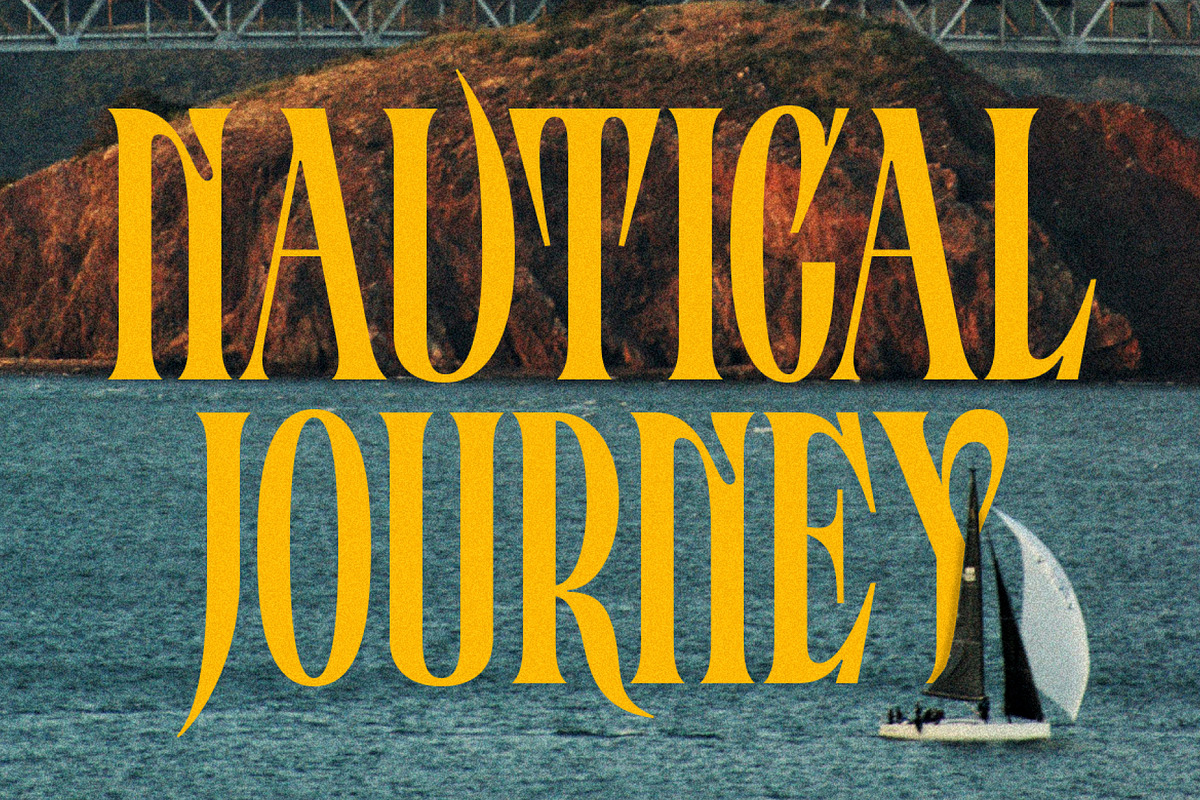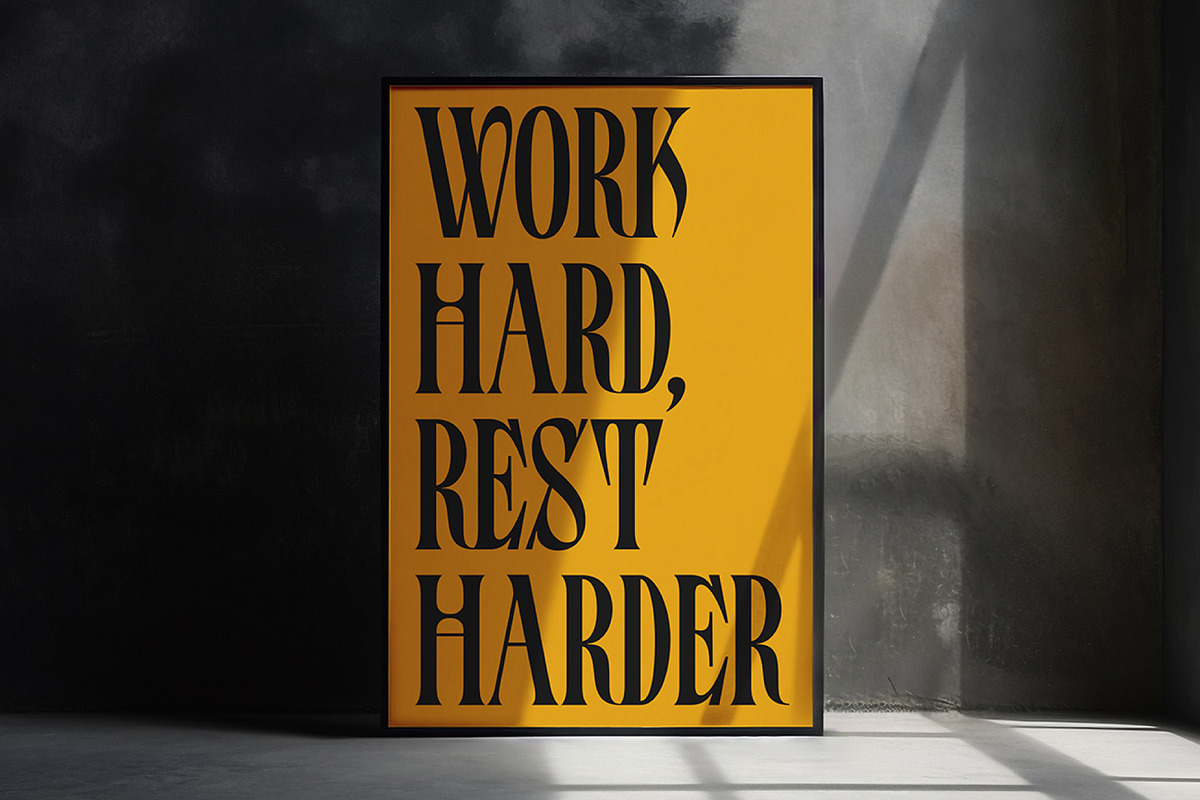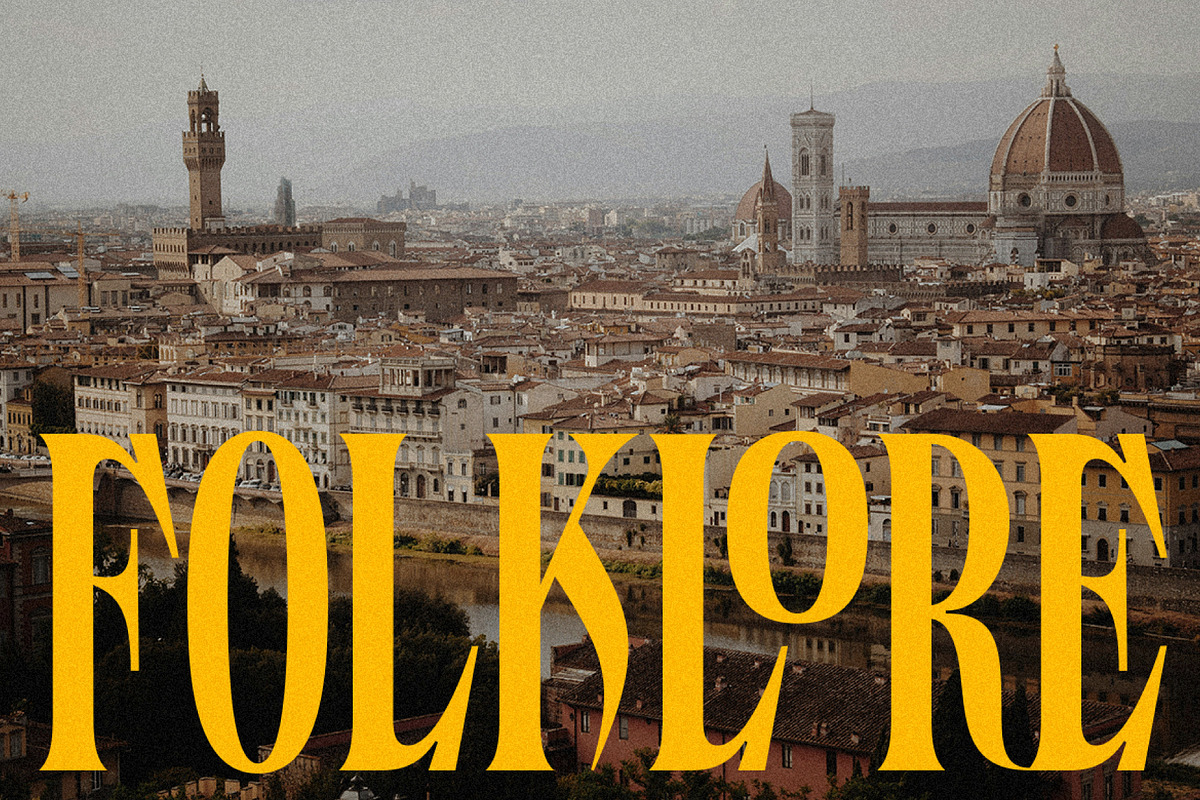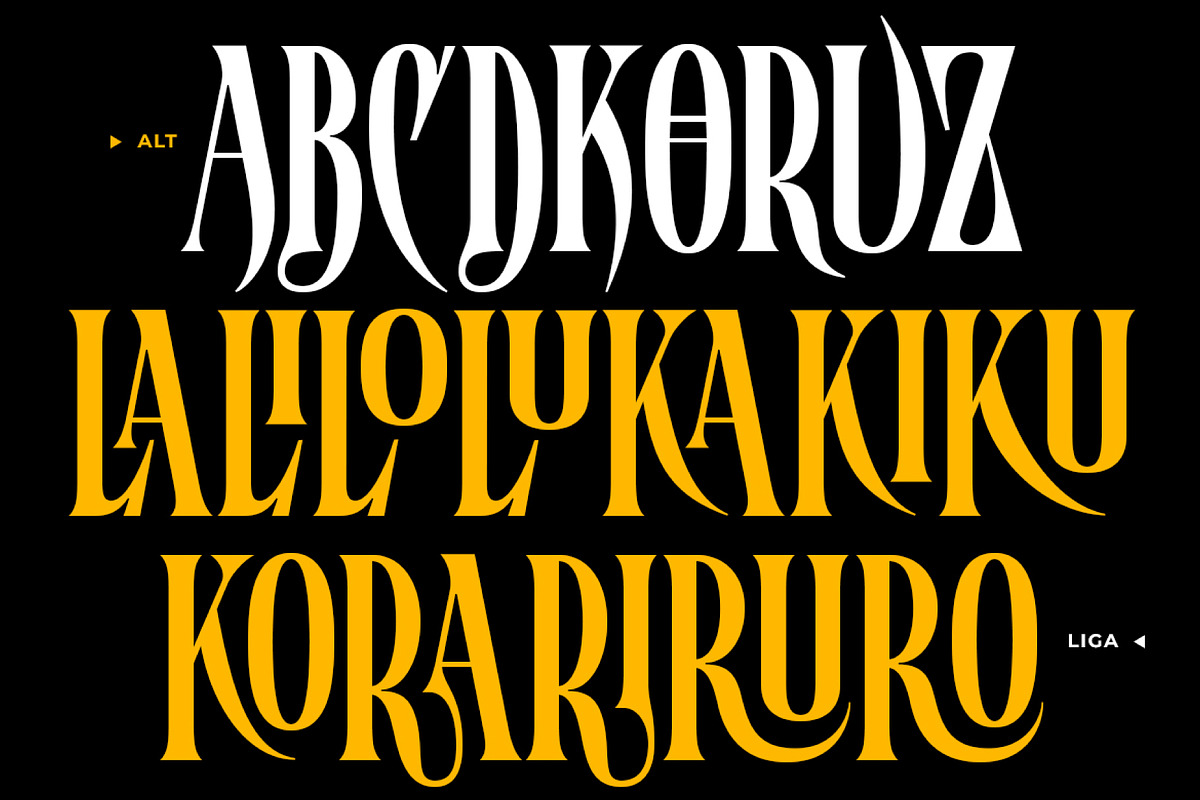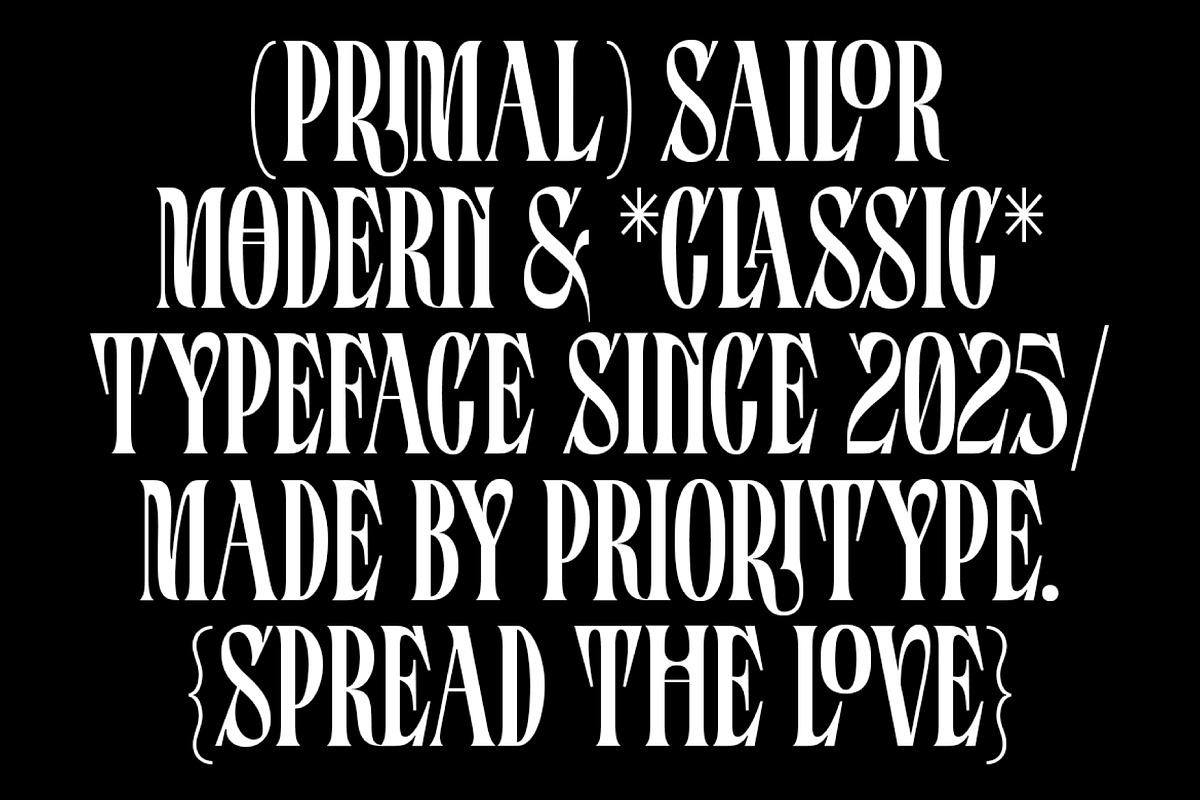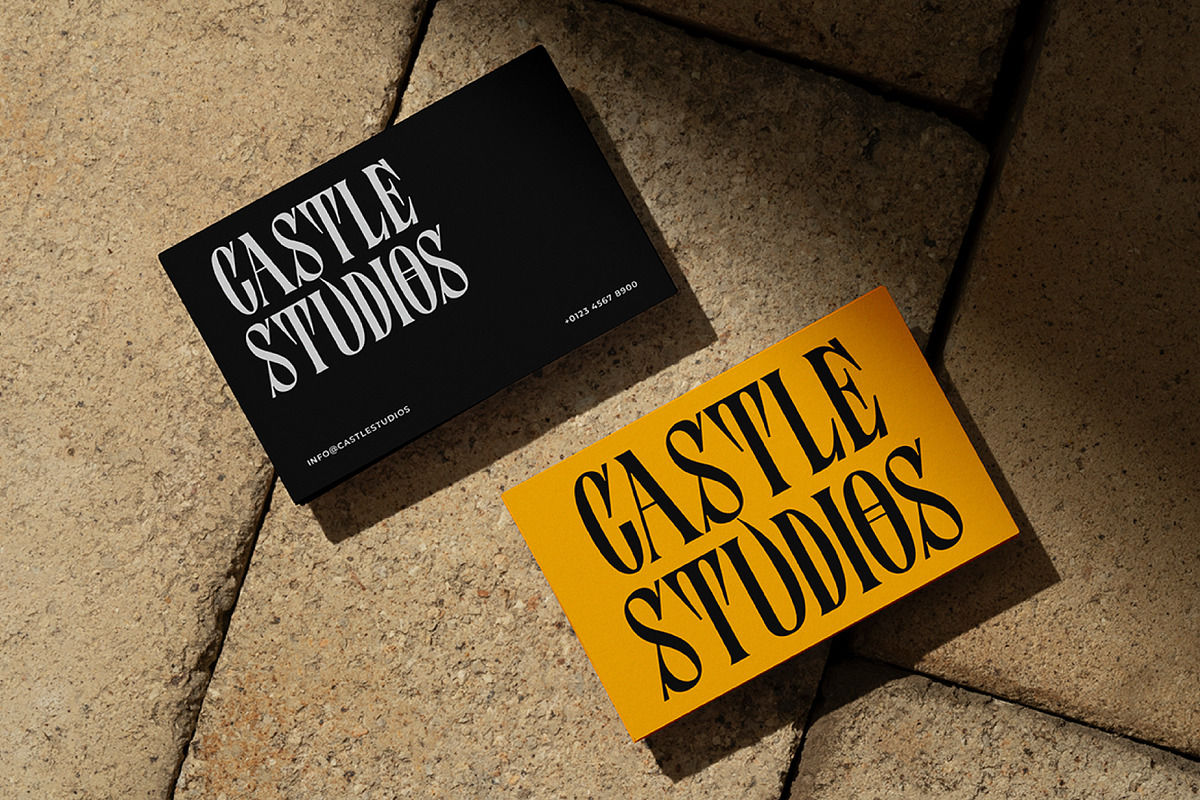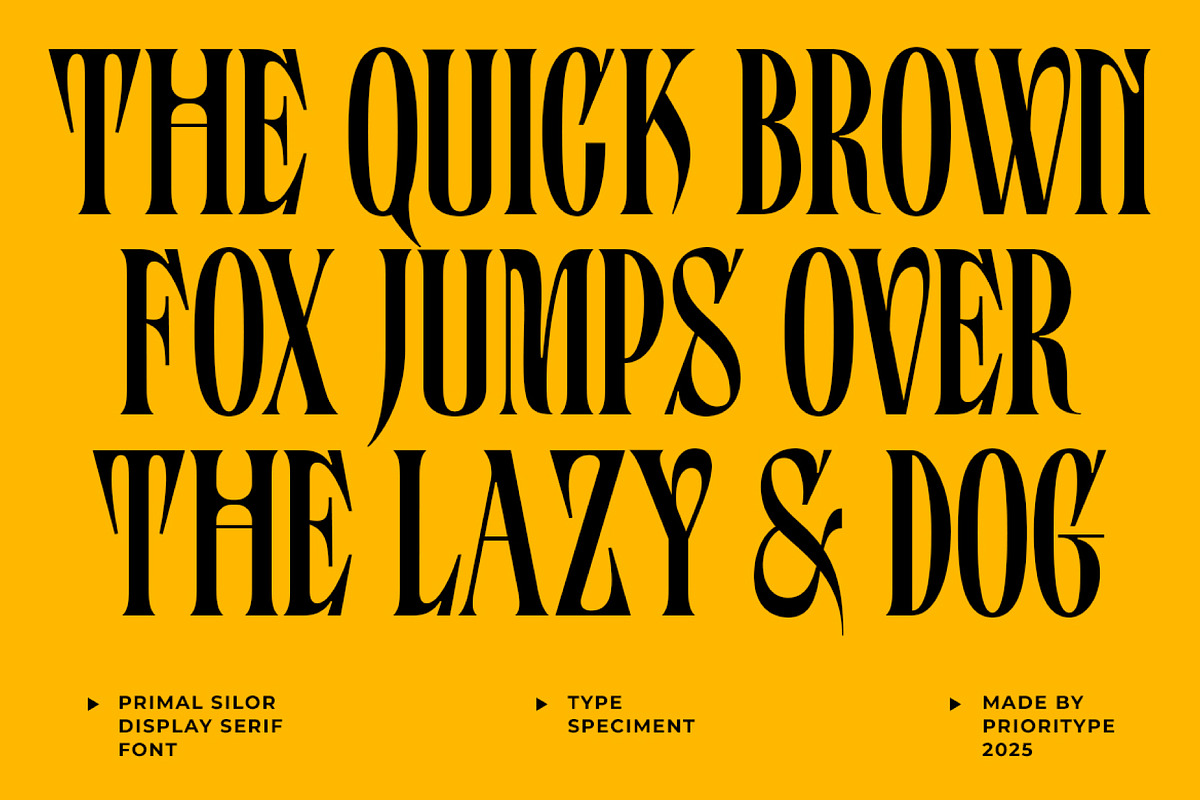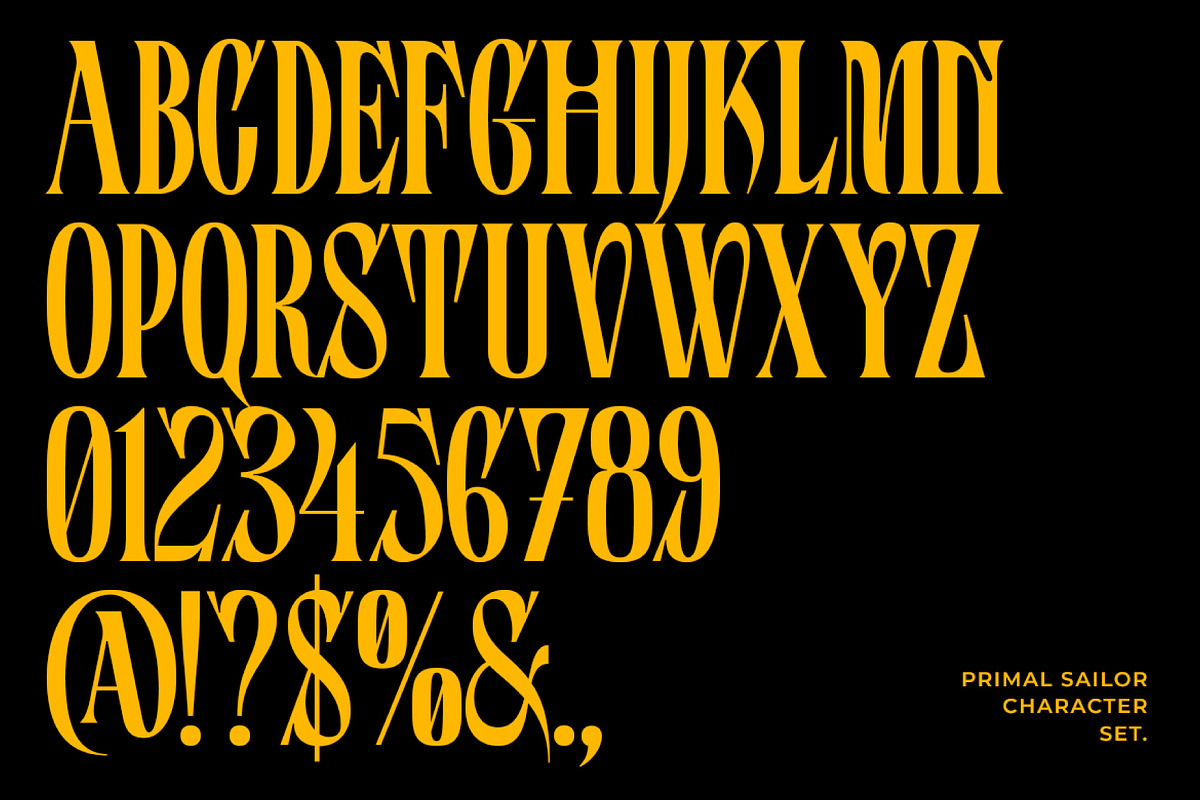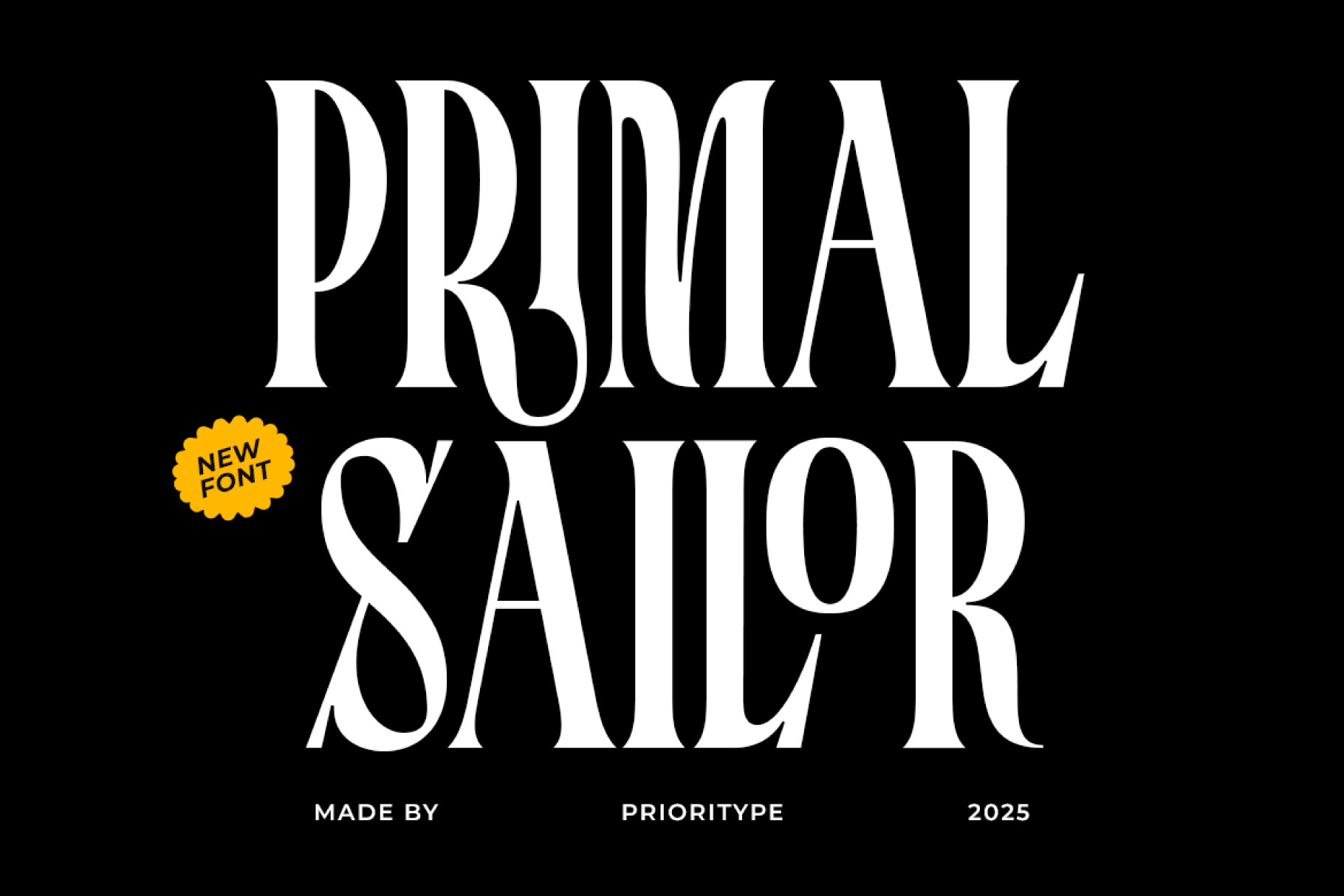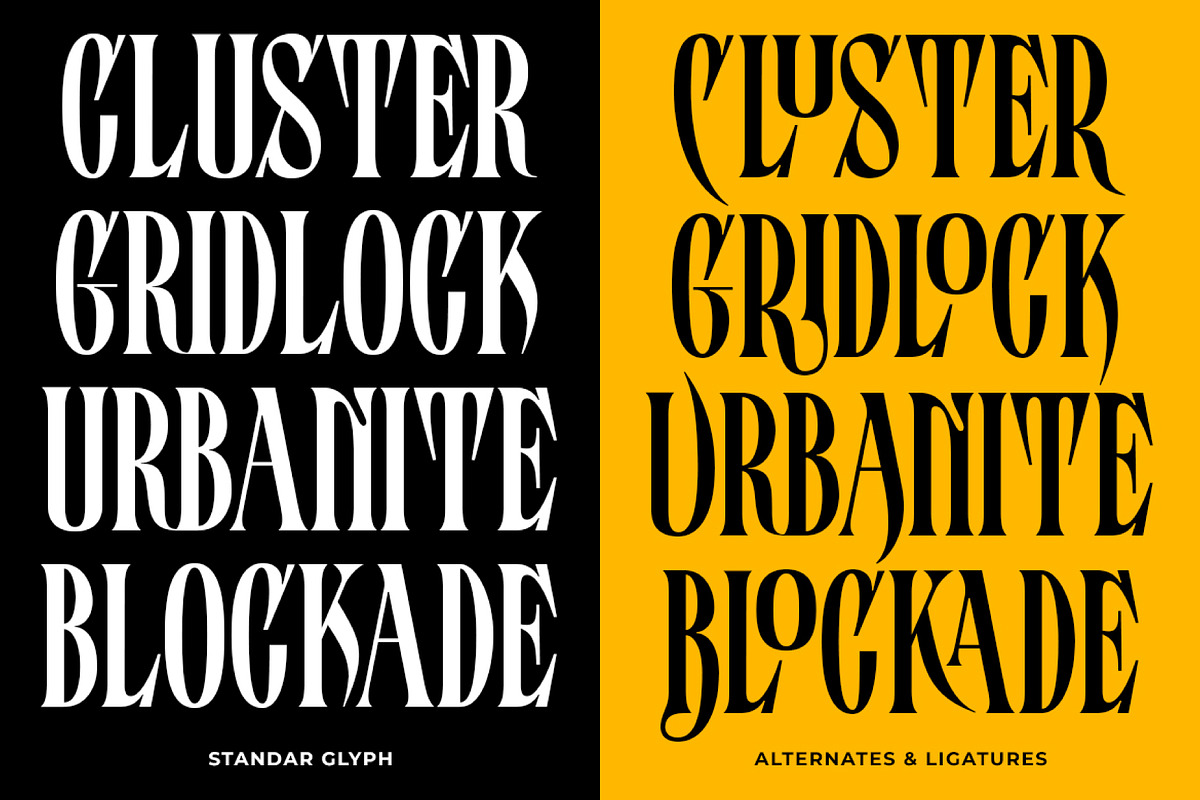
Primal Sailor - Condensed Font
Primal Sailor is a condensed display serif with a bold, striking, and commanding presence. Its sleek yet prominent letterforms exude elegance and strength, making it an excellent choice for posters, branding, logos, and various creative projects that demand a dynamic and authoritative look.
Designed to captivate, this typeface features robust proportions and sharp serif details, blending modern aesthetics with timeless appeal. Primal Sailor is more than just a font—it’s a visual statement that elevates your designs with confidence and impact.
- Features: Uppercase, Lowercase, Numeral, Punctuation, Multilingual, Alternates & Ligatures.